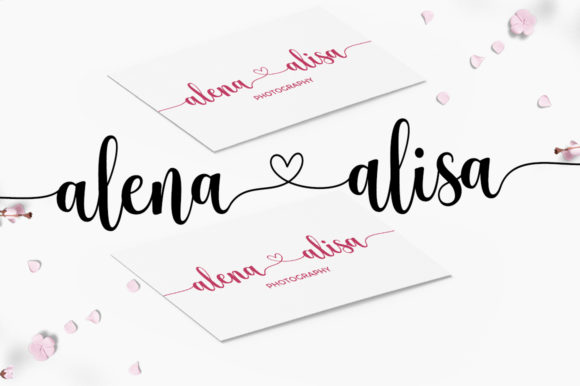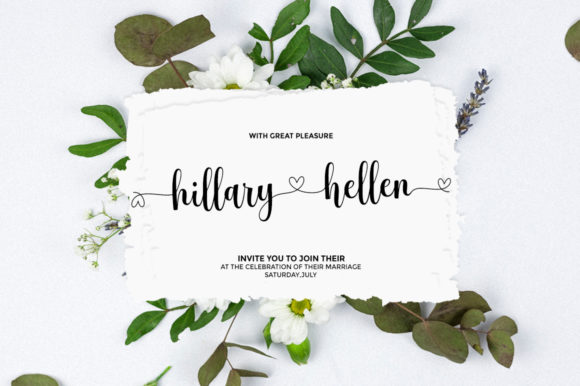
Beauty Night Font
db-ku.com - Script & Handwritten -- Beauty Night is a lovely script font with a romantic theme. No matter the topic, this font will be an incredibly asset to your fonts’ library, as it has the potential to elevate any creation.